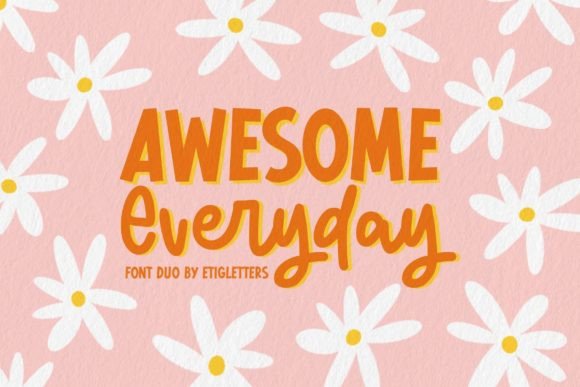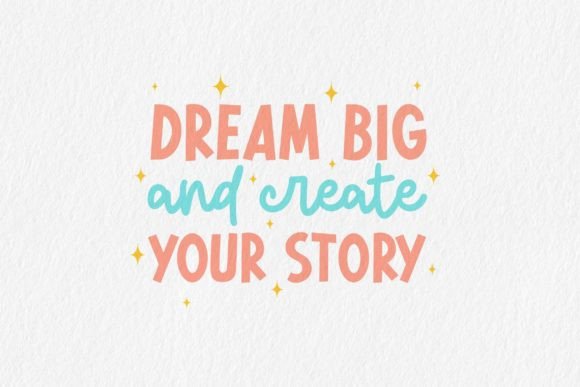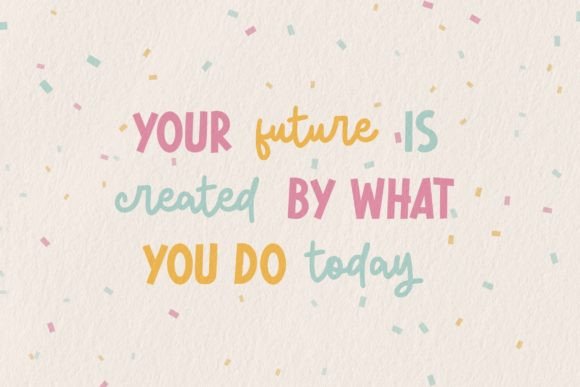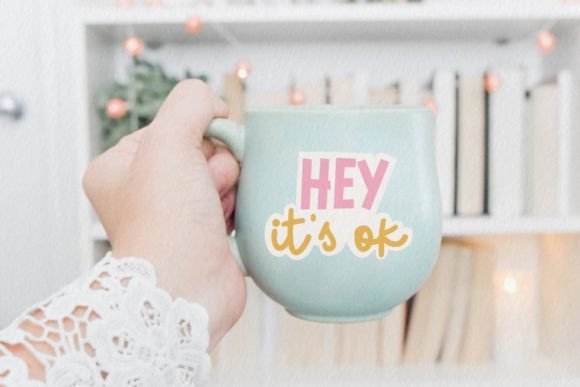
Awesome Everyday Duo Font
About the Awesome Everyday Duo Font
Unleash your creativity with Awesome Everyday Duo Font, a versatile font perfect for a wide range of applications. Awesome Everyday is a handwritten combo pairing with playful sans serif fonts. Awesome Everyday will be perfect for stickers, greeting cards, logos, posters, or anything that requires a fun and happy look!
This playful duo excels in branding projects for children’s products, social media graphics, and invitations requiring a fun, approachable feel. Its handwritten element works best in short bursts; avoid using it for large blocks of text or body copy. Overuse will diminish its impact. Legibility suffers in small sizes.
For optimal results, pair the script with a clean sans-serif like Open Sans or Lato for body text, maintaining visual consistency. Alternatively, a geometric sans-serif such as Montserrat would provide a modern contrast. Using a simple serif font like Merriweather for supporting text could add a touch of sophistication while retaining the overall friendly vibe.
The font’s personality is undeniably cheerful and informal, making it unsuitable for projects demanding elegance or seriousness. Its strength lies in conveying a sense of fun and approachability.